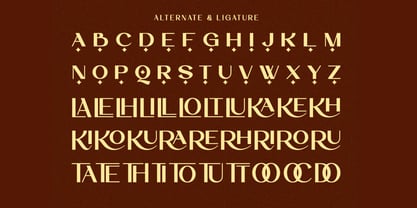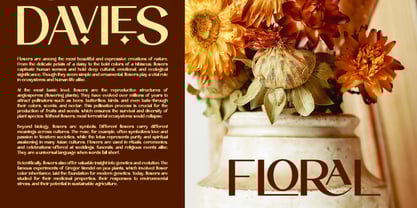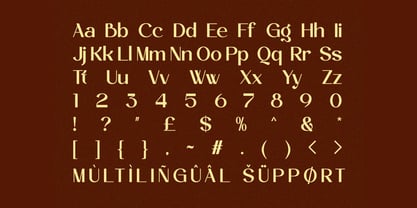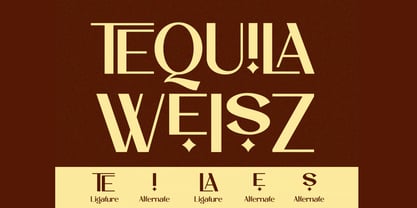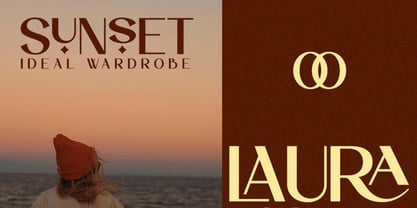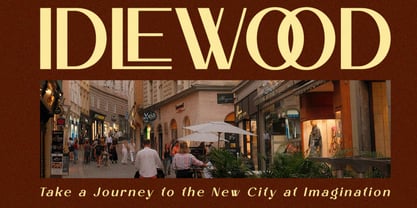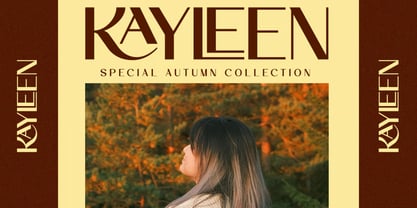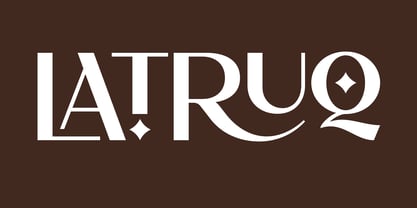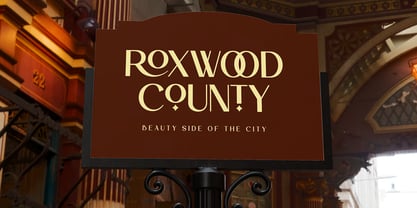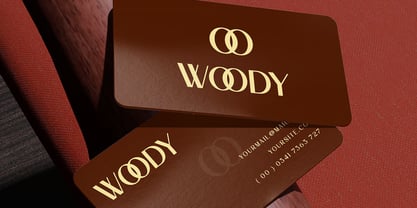
Latruq
Die Schriftfamilie Latruq wurde von Hasnat Khan entworfen und von Hasnat Studio veröffentlicht. Latruq enthält 1 Stile. Mehr über diese Familie
Latruq is a modern display sans serif typeface that embodies elegance, precision, and strong visual appeal. With its unique ligatures, alternate glyphs, and old-style figures, this font offers a refined yet contemporary aesthetic for any creative project. Available in both Regular and Italic styles, Latruq provides designers with the versatility needed to craft impactful and stylish typography. Its clean lines, balanced proportions, and smooth readability make it ideal for a variety of applications, including headlines, titles, logos, labels, packaging, magazines, presentations, editorial layouts, invitations, postcards, social media graphics, and a wide range of display-focused design needs. ✿ Key Features: Modern Display Sans Serif: Sleek, elegant, and highly versatile for contemporary design. Regular & Italic Versions: Two styles for cohesive branding and stylistic flexibility. Stylistic Alternates: Unique alternate glyphs that add personality and customization. Creative Ligatures: Enhance your typography with professional, seamless letter combinations. Old-Style Figures: Introduce typographic sophistication and classic character. Multilingual Support: Includes accented characters for global compatibility. Complete Character Set: Numbers, punctuation, and symbols for polished, professional use. ✿ Perfect For: Headlines & Titles: Strong and modern for high-impact display typography. Branding & Logo Design: Ideal for clean, professional, and contemporary branding. Packaging & Labels: Infuse style and clarity into product design. Editorial & Magazines: Perfect for minimal, elegant layout design. Presentations & Advertising: Create eye-catching visuals with modern appeal. Invitations & Postcards: Stylish and refined for both formal and creative events. Bring your ideas to life with Latruq—a modern, elegant sans serif typeface designed for beautiful, impactful, and professional display typography.